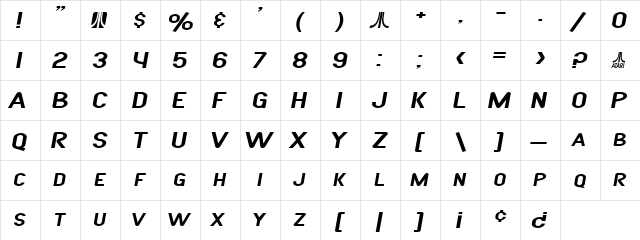
SF Atarian System Extended Italic
Design Context for SF Atarian System Extended Typeface
SF Atarian System Extended is a composed and adaptable typeface that performs quietly and consistently across a wide range of design contexts. The slanted form adds forward momentum and visual energy.